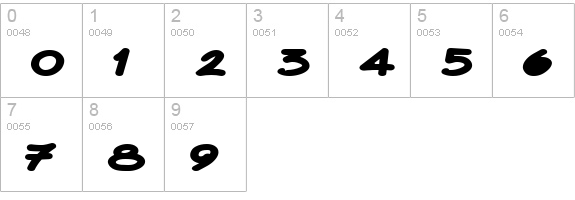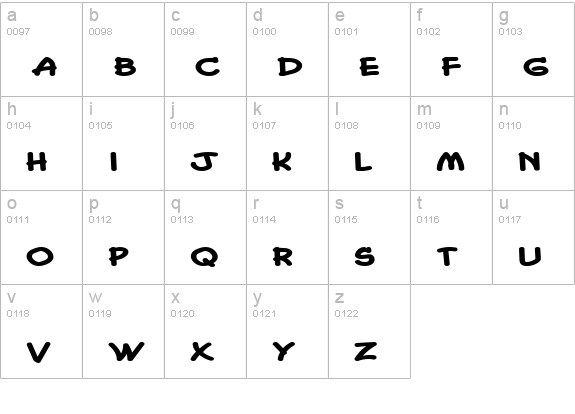
Chasm Extended Heavy Bold is a heavy, high-impact, extended-width variant in the Chasm typeface family \xE2\x80\x94 well suited to high-impact headlines, posters, and display advertising.
Chasm Extended Heavy Bold font is a bold and commanding typeface that exudes strength and power. Its extended letterforms give it a modern and impactful look, making it perfect for headlines, titles, and branding projects that require a strong visual presence. This font is designed to make a statement and grab attention with its bold strokes and heavy weight. And the best part? Chasm Extended Heavy Bold font is available for free download at FontsMarket.com. You can easily access this powerful typeface to enhance your design projects and make a lasting impression. Don't miss out on the opportunity to add this bold and striking font to your font collection today!